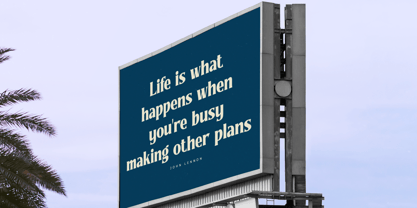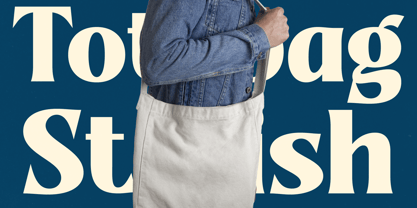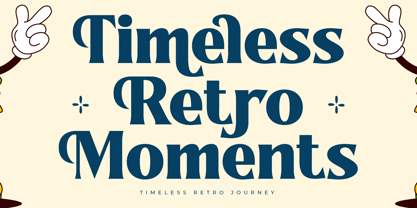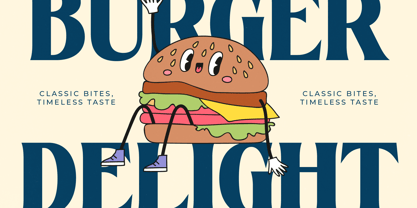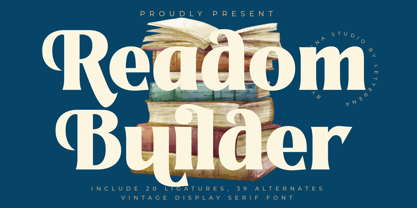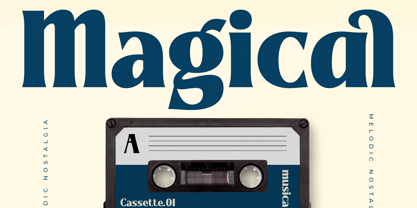
Readom Builder
The Readom Builder Font Family was designed by Heru Utama Putra and published by Letterena Studios. Readom Builder contains 2 styles and family package options.
Readom Builder – Vintage Display Serif , from Letterena, is a Luxury Serif font, suitable for any projects such as: logos, branding projects, homeware designs, product packaging, mugs, quotes, posters, shopping bags, t-shirts, book covers, name card, invitation cards, greeting cards, label, photography, watermark, special events, and all your other luxury and beautiful projects that need a Luxury Serif taste.